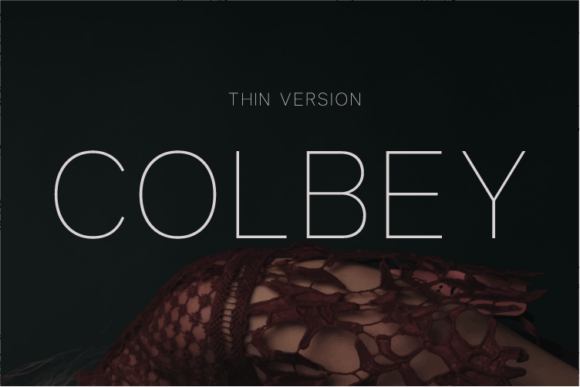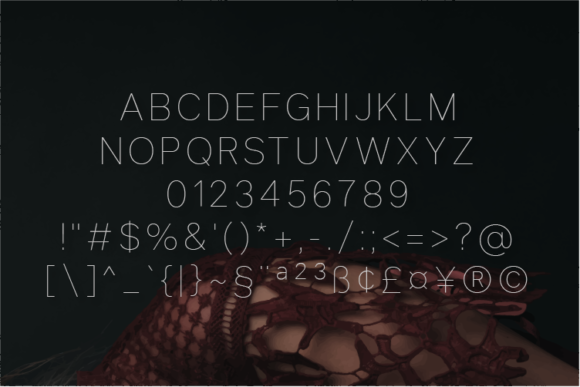
The Perfect Blend of Style and Functionality
As designers, we’ve all been there – staring at a blank screen, trying to find the perfect font to bring our vision to life. And then, it hits us – a burst of creativity, a spark of inspiration, and suddenly, our project is taking shape. For many of us, this moment is what makes the design process so exhilarating.
When it comes to elevating our designs, we need a font that can keep up. That’s where the Colbey Thin Font comes in – an elegant, contemporary sans serif font designed to make a statement. With its soft edges and clean, stylized geometry, it’s the perfect choice for branding, logos, web design, and so much more. Whether you’re a seasoned pro or just starting out, the Colbey Thin Font is a valuable addition to your design toolkit.
Colbey Thin Font Key Features
- Font Family: Colbey Thin, a sleek and modern sans-serif font.
- Unique Characteristics: The Colbey Thin font features a clean and minimalist design, with subtle rounded edges and a touch of elegance, making it perfect for branding, packaging, and digital design.
- Font Style: Available in a single style, Colbey Thin, which is ideal for creating a consistent and cohesive visual identity.
Colbey Thin Font Review
Overall, I think the Colbey Thin Font is a solid addition to any design library. Here are a few things that really shine:
- ✨ Unique aesthetic: The Colbey Thin Font has a distinctive, modern feel that’s perfect for creating eye-catching headings and titles.
- ✨ Versatile: Whether you’re designing a website, brochure, or magazine, this font is adaptable and can be used in a variety of contexts.
- ✨ High-quality glyphs: The font’s glyphs are well-designed and clean, making it easy to read and use in a range of settings.
- ⚠️ Limited font weights: The Colbey Thin Font is, as the name suggests, a very thin font. While this works well for some applications, it may not be suitable for body text or other areas where a thicker font is needed.
- ⚠️ Limited language support: The font may not include all the characters and languages you need, which could be a problem if you’re designing for a global audience.
Overall, I’d say the Colbey Thin Font is a great choice for designers who want to add a touch of modernity to their projects. Just be aware of its limitations and use it accordingly.
Getting the Most Out of Colbey Thin Font
For best results, pair Colbey Thin with a bold font to create a striking contrast.
Use Colbey Thin for headings and subheadings to create a clean and modern look.
Colbey Thin is ideal for:
- Branding and logos.
- Web design and development.
- Print materials such as business cards and brochures.
Alternatives to Colbey Thin Font
1. Open Sans Light
Open Sans Light is a clean and modern sans-serif font. It is ideal for body text and headings where readability is crucial. Use it for digital interfaces, websites, and applications where a neutral tone is desired.
Comparison to Colbey Thin Font: Open Sans Light is more legible and has a higher x-height, making it better suited for body text. Colbey Thin Font has a more elegant and delicate feel, making it suitable for titles and headings.
2. Lato Thin
Lato Thin is a sans-serif font with a modern and elegant feel. It is perfect for use in branding, logos, and titles where a touch of sophistication is desired. Use it for print materials, such as business cards, brochures, and magazines.
Comparison to Colbey Thin Font: Lato Thin has a more dramatic and refined feel compared to Colbey Thin Font, making it suitable for more formal applications. Colbey Thin Font has a more subtle and delicate feel, making it suitable for a wider range of applications.
3. Montserrat Thin
Montserrat Thin is a geometric sans-serif font with a modern and urban feel. It is ideal for use in digital interfaces, websites, and applications where a bold and edgy tone is desired. Use it for titles, headings, and body text where a strong statement is needed.
Comparison to Colbey Thin Font: Montserrat Thin has a more dramatic and edgy feel compared to Colbey Thin Font, making it suitable for more bold applications. Colbey Thin Font has a more elegant and refined feel, making it suitable for a wider range of applications.